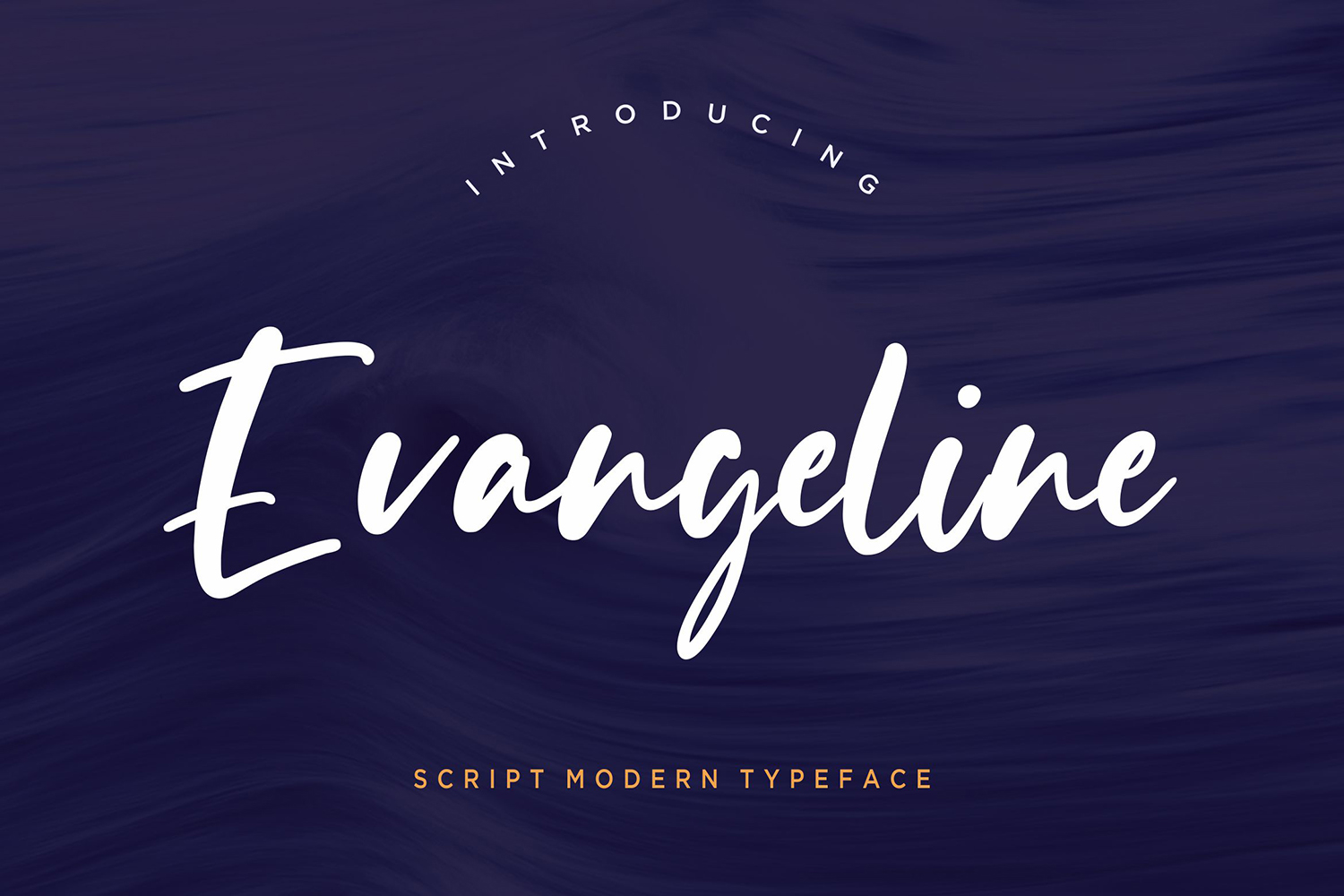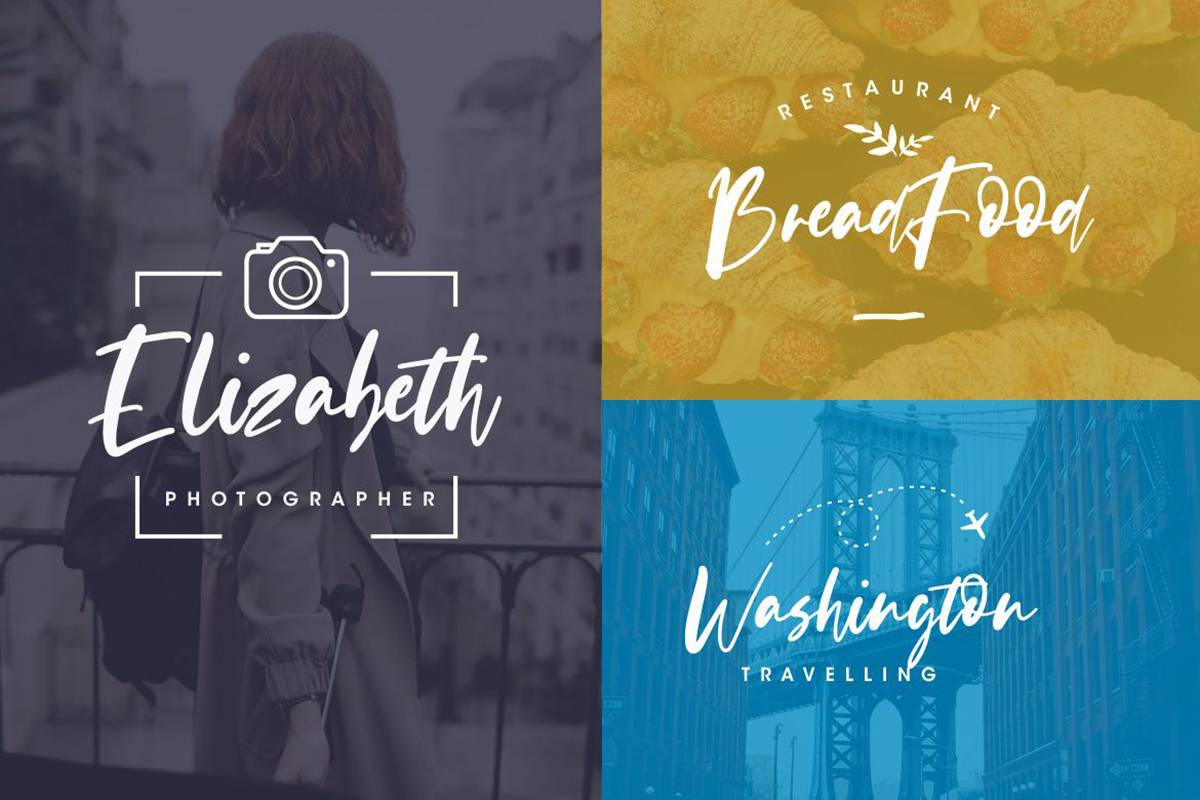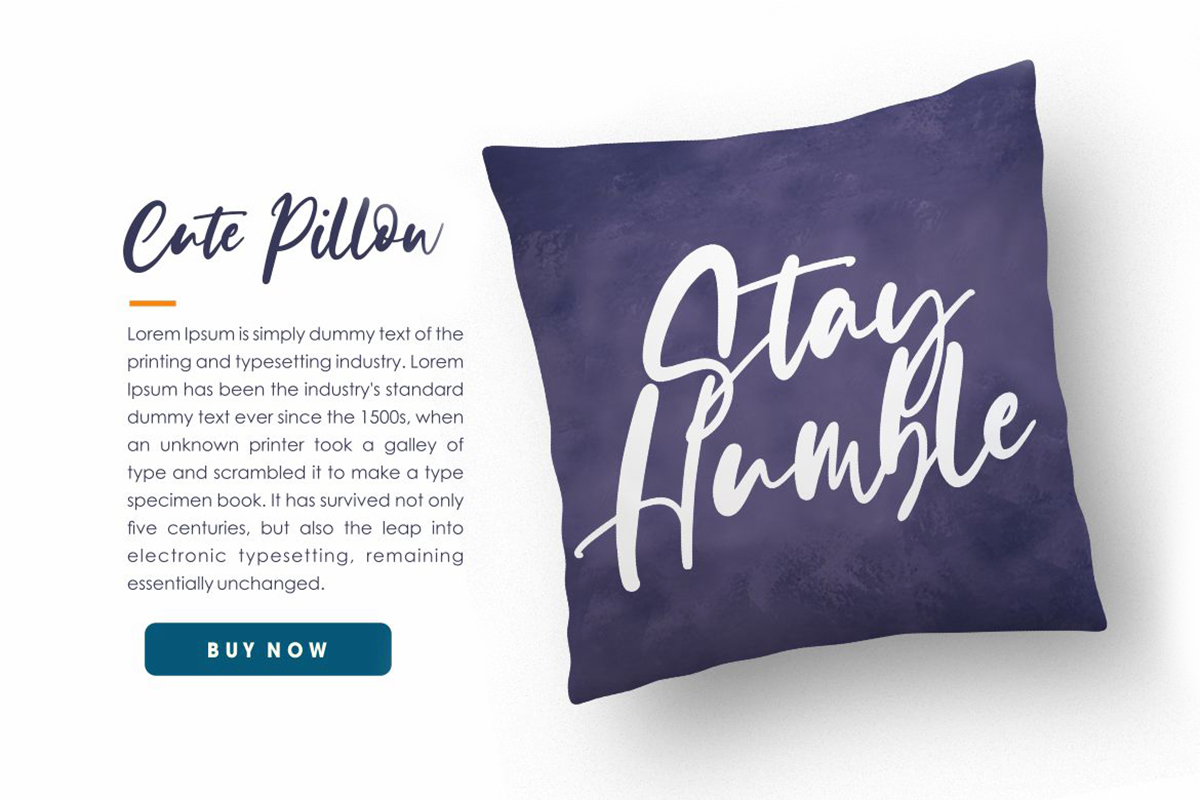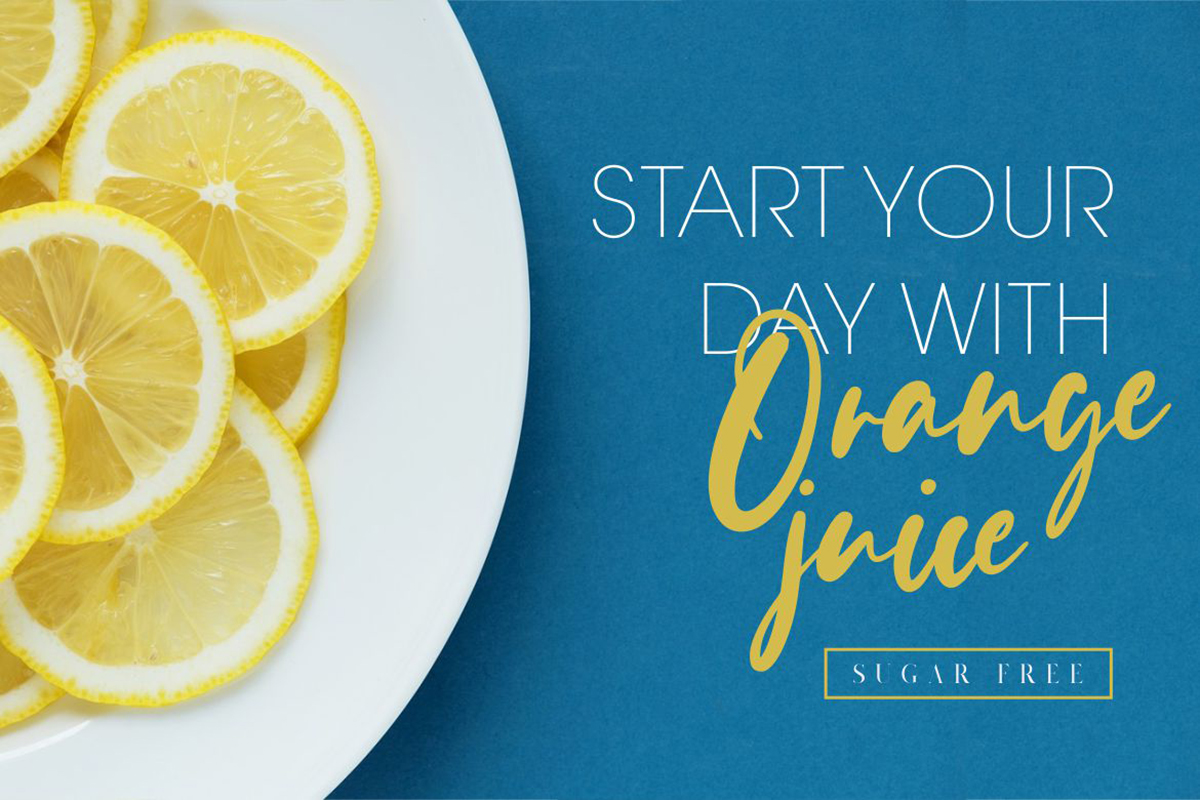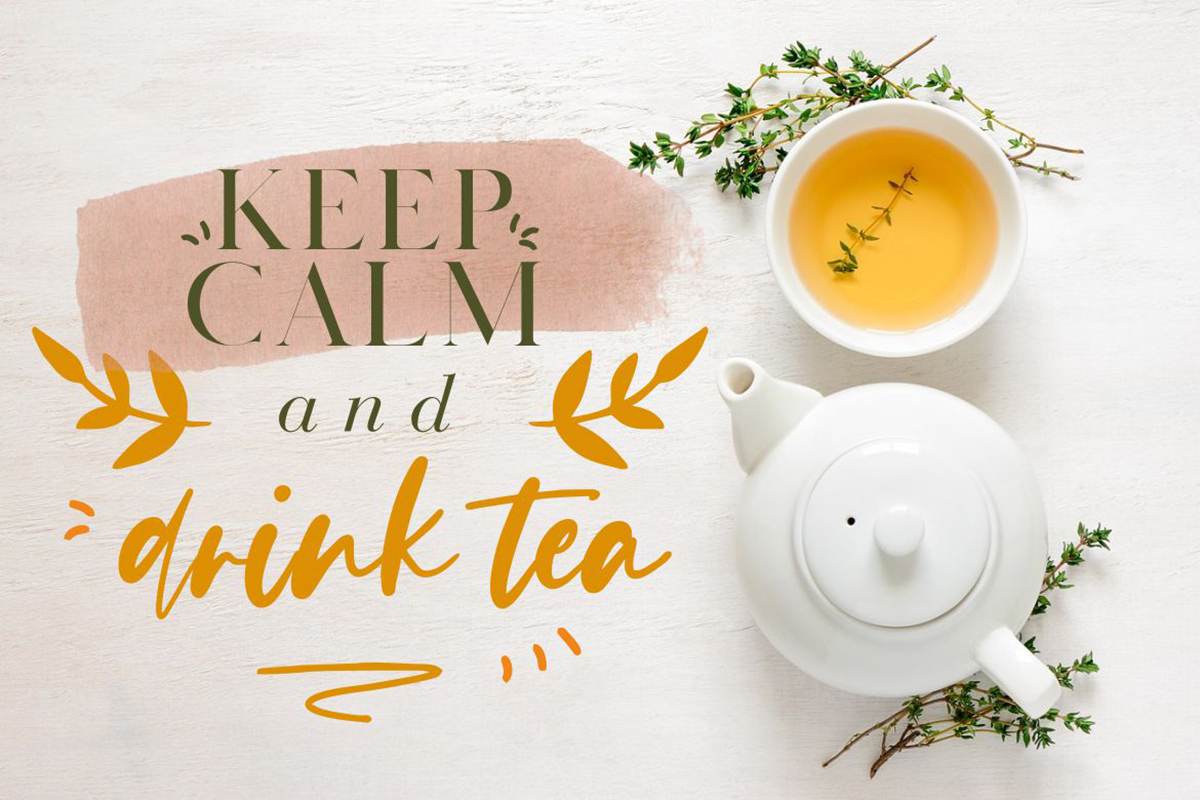
Evangeline Modern Free Font
Evangeline Modern Free Font is a stylish handwritten typeface that mimics brush writing and stands out for its elegant calligraphic style. This font helps you create unique design projects and enhance your professional level. Use this font to create memorable posters, wedding invitations, cards, branding, flyers, and more. Improve the quality and increase the popularity of your design projects by using this font. If you like it don’t forget to check out the full version.